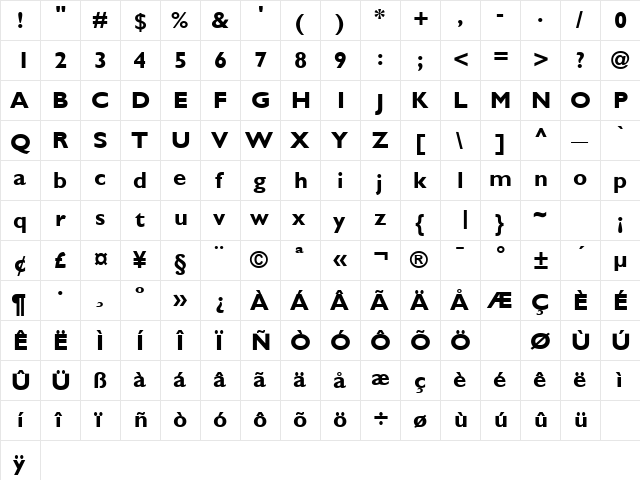
Gentle Sans Bold
Design Context for Gentle Sans Typeface
Gentle Sans takes a measured approach to typography — its balanced proportions and neutral character make it a reliable workhorse for both digital and print work. The heavy weight commands attention and anchors typographic hierarchies.